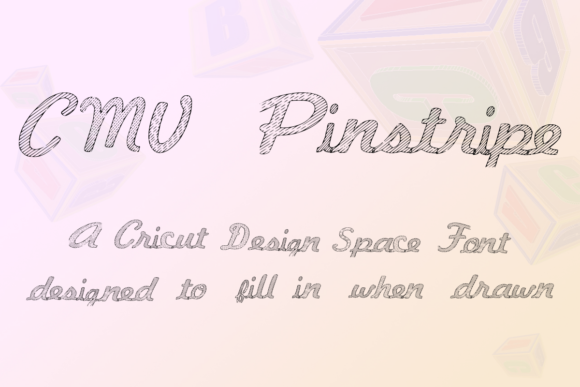
HomeScript FontsCMV Pinstripe Font Script Fonts CMV Pinstripe Font FacebookXPinterestWhatsApp CMV Pinstripe Font Poster 2 About CMV Pinstripe Font CMV Pinstripe is an outlined script featuring stunning stripes. It will add a lovely flavor to any design idea! DOWNLOAD ON CREATIVE FABRICAThis font is sold and delivered by Creative Fabrica. Font Canyon may earn a commission if you buy through this link. People also explored Fantasy Font Spare Font Skinny Font Redpine Font Kafka Font Bokeseni Book Italic Font Rokitt Font Leviossa Font Awake Font 275 0 TagsCMV Pinstripe Font Previous articleCMV Polka Dot FontNext articleElizabeth Font LEAVE A REPLY Cancel reply Comment: Please enter your comment! Name:* Please enter your name here Email:* You have entered an incorrect email address! Please enter your email address here Website: Save my name, email, and website in this browser for the next time I comment. Personal Use Free Browie Personal Use Free Read more about this font Wintersoul Personal Use Free Read more about this font Austin Personal Use Free Read more about this font Lion Teen Personal Use Free Read more about this font BLOG Using Fonts in Digital Marketing: Tips to Strengthen Your Brand Identity In the realm of digital marketing, every visual element plays a crucial role in shaping a brand's identity, and fonts are no exception. The... How to Install and Use Fonts on Windows, macOS, and Web Projects 5 Fonts That Will Dominate Design Trends in 2026 Top 10 Handwritten Fonts That Elevate Your Designs